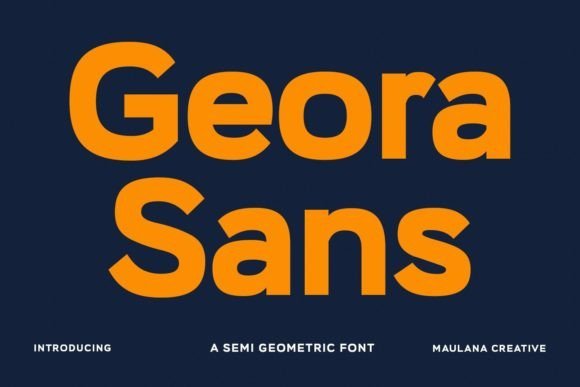
Enter the Geora Font, a simply semi-geometric sans serif font that’s perfect for logo design, social media, movie titles, and more. With its medium low contrast stroke and fun character, Geora Font is designed to give you extra creative freedom to make stunning work. And with its PUA encoding, you’ll have access to all the amazing glyphs and ligatures you need to take your designs to the next level.
Geora Font Key Features
- Unique Characteristics: Geora Font features a unique blend of modern and vintage elements, with clean lines, geometric shapes, and subtle textures that give it a distinctive look.
Designer Review: Geora Font
Overall, I think the Geora Font is a nice addition to any designer’s toolkit. ✨ One thing I really like about it is its clean, modern aesthetic, making it perfect for any project that requires a touch of sophistication. The font’s rounded edges and sleek lines give it a friendly and approachable feel, making it suitable for a wide range of applications.
The font’s versatility is also a major plus. ✨ It comes in a variety of weights and styles, allowing designers to choose the perfect fit for their project. Whether you’re creating a bold, eye-catching headline or a delicate, subtle body text, Geora has got you covered.
Overall, I think the Geora Font is a solid choice for designers who need a modern, versatile font. While it may have some limitations, its clean aesthetic and wide range of styles make it a great addition to any design arsenal.
Geora Font is ideal for:
- Headings and titles in creative projects.
- Displaying quotes or short phrases.
- Creativity-focused designs, such as posters and flyers.